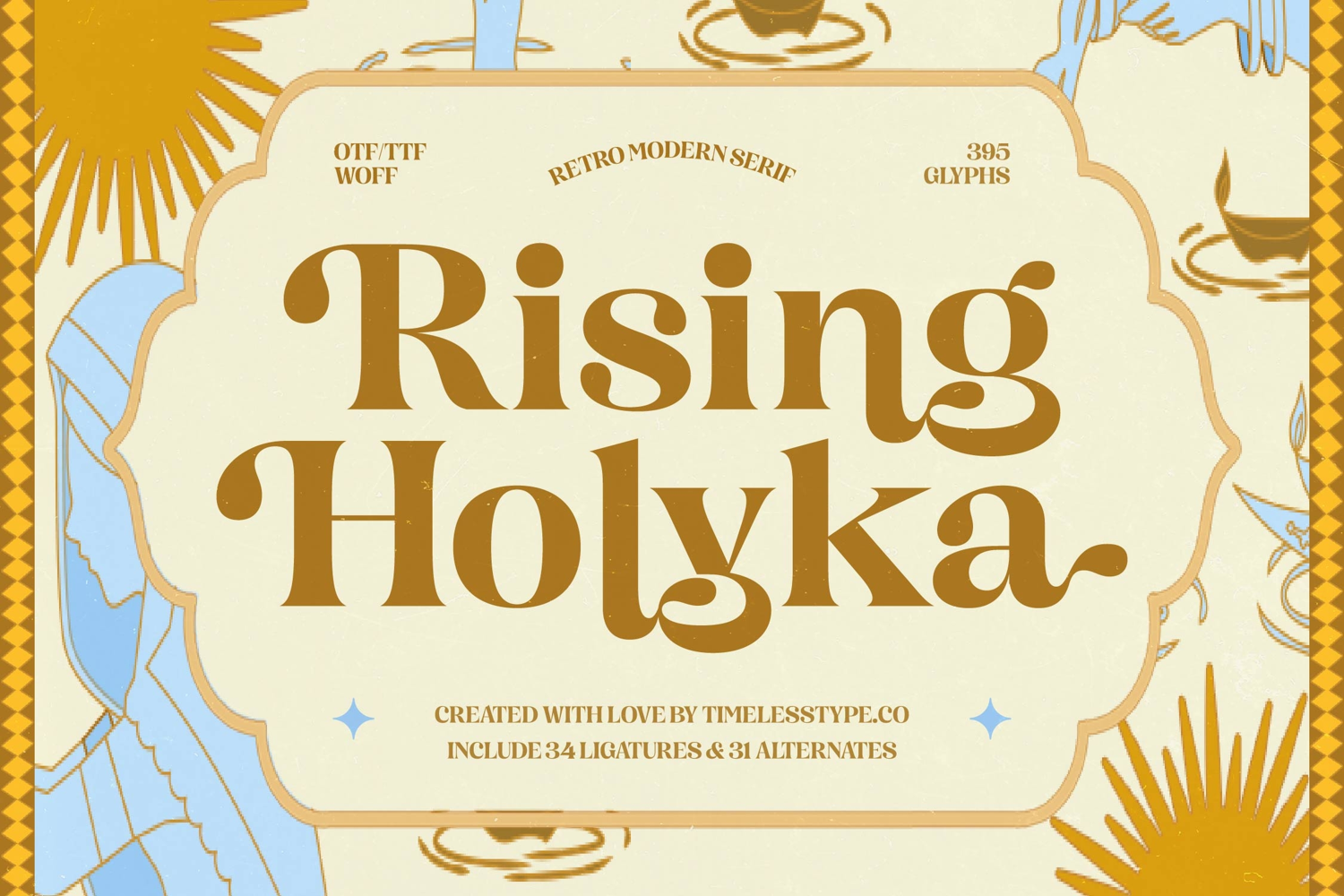
Rising Holyka - Retro Modern Serif
Rising Holyka
Rising Holyka Italic
Rising Holyka is a retro–modern serif crafted with elegant curves, bold contrast, and expressive character shapes that bring a sophisticated vintage presence to any design. Its sculpted letterforms and ornamental flair deliver a timeless look—perfect for editorial headlines, boutique branding, luxury packaging, book covers, posters, and high-impact display typography.
Featuring 34 ligatures and 31 stylistic alternates, Rising Holyka gives designers the flexibility to create rich, artistic compositions with a refined retro soul. Whether you're building a nostalgic visual identity or a modern serif aesthetic with personality, this typeface stands out effortlessly.